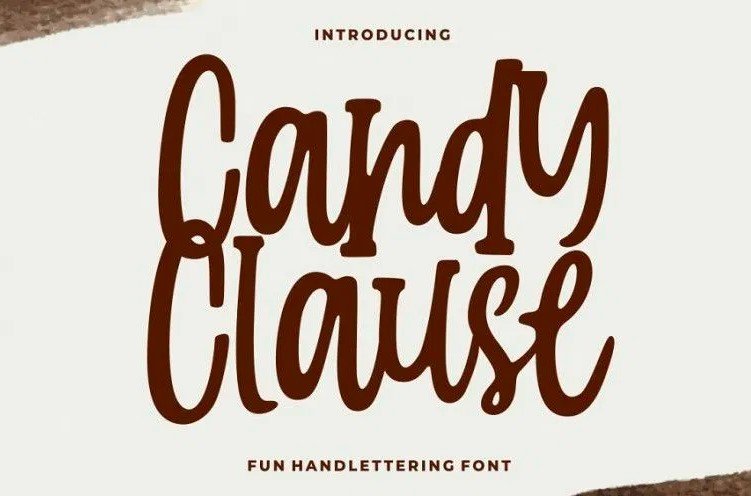
We are excited to present the Candy Clauseis Font, a distinctive typeface featuring a playful display texture. This typeface offers bold and regular styles with trendy designs, all available for free download and provided under an opentype license.
The font was shared by Goodjava font foundry. This is one of the trendy typefaces because of its natural handwritten typeface. The best use of this font is to use the combination of mustardo script font as a pairing.
Of course you can use the Candy Clauseis Handlettering for your logo as well as all other graphic design projects.